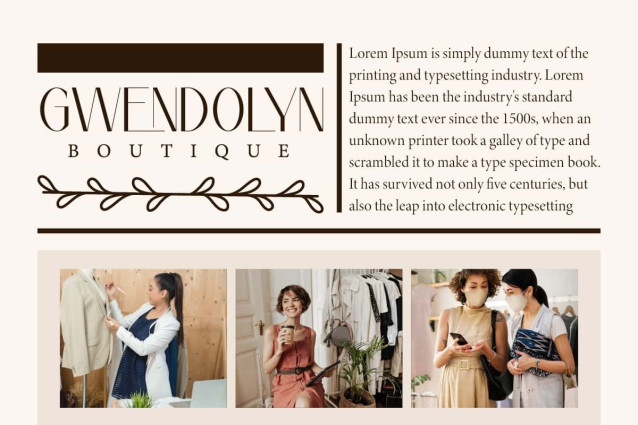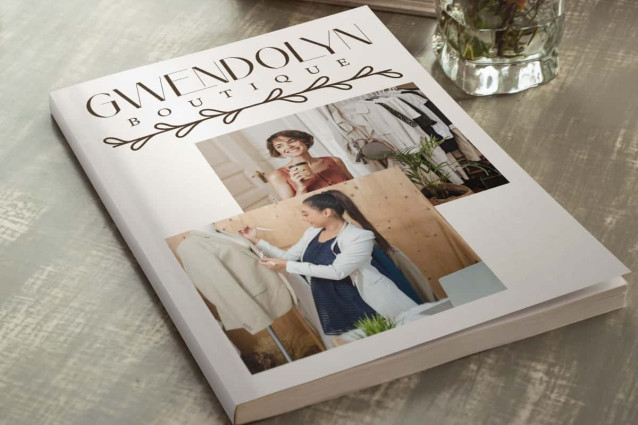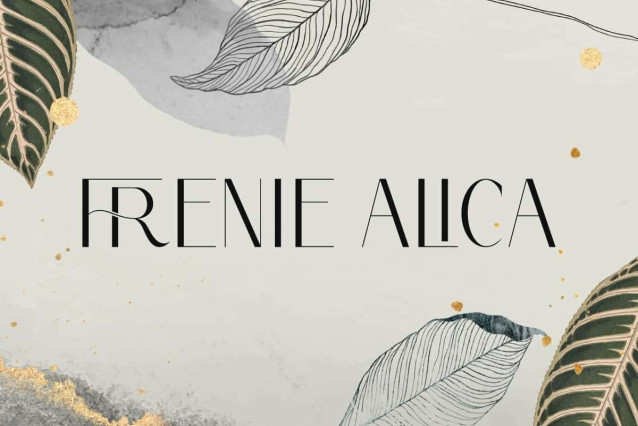
Frenie Alica Font
Frenie Alica Font is a lovely sans serif font with an elegant that mix of thin and thick lines. This font will be perfect for any projects, such as invitation, label, advertisement, custom design, layout design, magazine cover, quotes, signage, stationery, template design, website page, and many more!
Frenie Alica Font includes a complete set of Uppercase and Lowercase Basic Characters, Numbers, Punctuation, Symbol, and Ligature character. This font gives an exclusive and unique impression. Making it a perfect choice for a variety of fields, such as accessories, advertising, beauty product, cafe, event or wedding organizer, fashion, flower shop, furniture, photography and more.